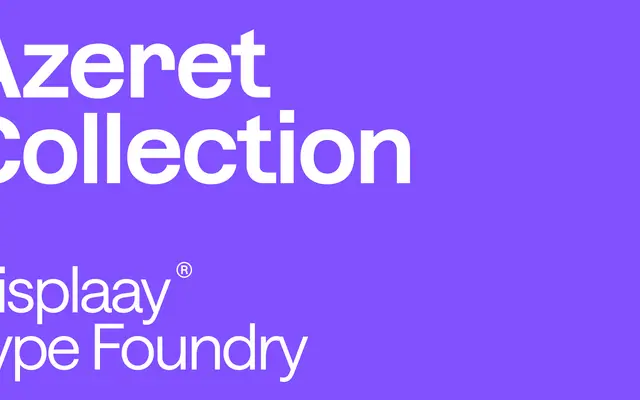
A three-family collection spanning proportional, semi-mono and fully monospaced cuts, unified by a variable font with Weight, Slant and Mono axes.
The Azeret collection comprises 48 styles across three families — Azeret, Azeret SemiMono and Azeret Mono — each sharing a geometric, technically inflected construction with clear OCR-era references. A variable font ties all three together via Weight, Slant and Mono axes, allowing smooth interpolation between proportional and monospaced spacing within a single file. The aesthetic draws on consumer electronics and digital display culture, making it well suited to tech interfaces, editorial design and screen-first applications.
The typeface draws on OCR and technical display aesthetics, with a geometric construction and a variable Mono axis that shifts between proportional and monospaced letterforms, placing it firmly in the geometric sans category.